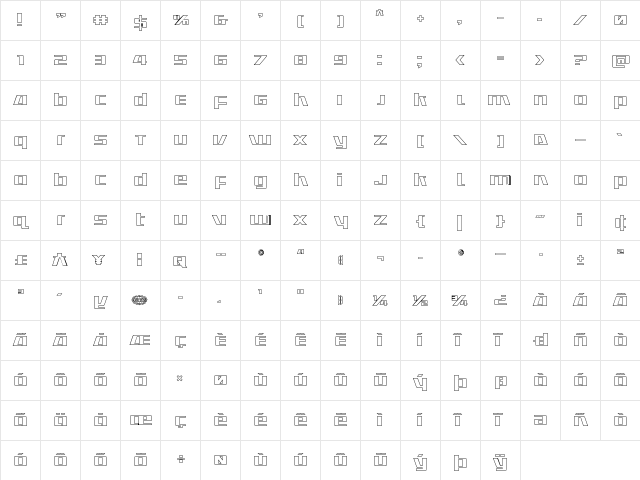
Ultramarines Outline Outline
Design Context for Ultramarines Outline Typeface
Ultramarines Outline brings ornamental detail and strong personality to headlines and identities, where visual impact matters more than quiet functionality.
Font Pairing: Pair with a clean neutral sans-serif for body copy to let Ultramarines Outline's character lead without overwhelming the composition.
Pro Tip: Treat Ultramarines Outline as the centrepiece of your typographic hierarchy. One strong heading set in a decorative face can carry an entire layout.